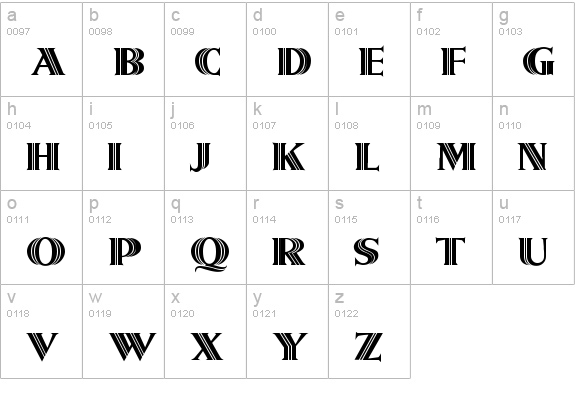
Girnalmond font is a delightful and charming typeface that exudes elegance and sophistication. Its graceful curves and unique design make it perfect for a wide range of design projects, from invitations to branding and beyond. The delicate serifs and flowing lines of Girnalmond add a touch of whimsy and personality to any text. What's even better is that Girnalmond font is completely free to download at FontsMarket.com! This means you can easily access this beautiful typeface and incorporate it into your designs without any cost. Whether you're a seasoned designer or just starting out, Girnalmond font is a versatile and stylish choice that will elevate your creations to the next level. Download Girnalmond today and let your creativity soar!